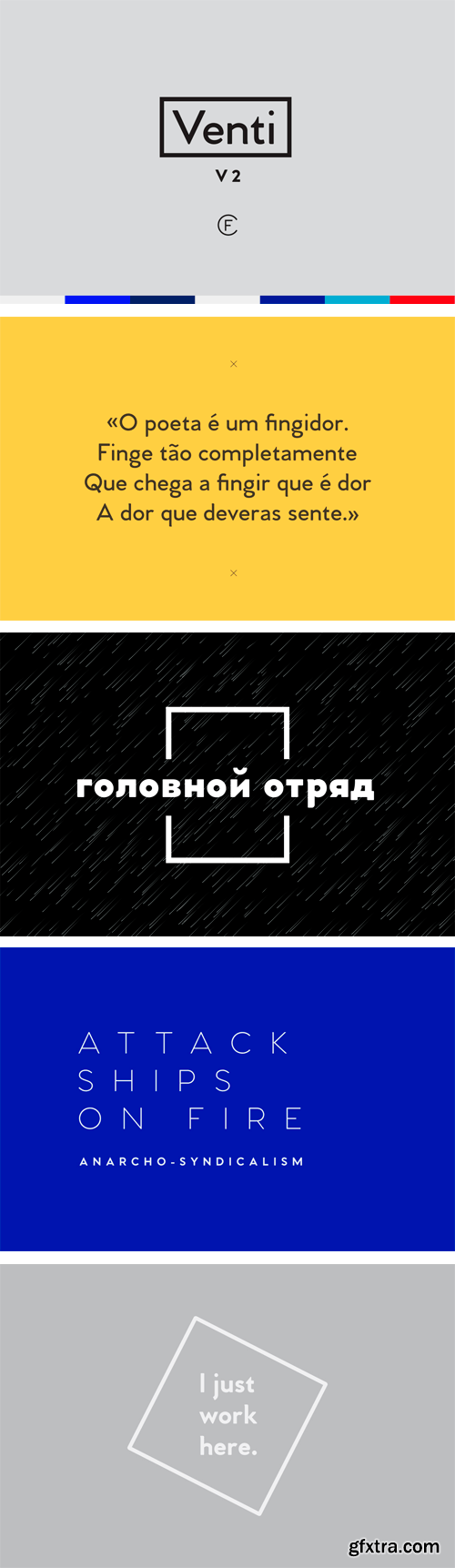
- Venti is a geometric font family with a warm, readable character. Inviting and versatile, Venti's engaging form, subtle imperfections and human tone make it an enticing choice for headlines, quotations and short texts. Version 2 brings a host of bug fixes, redrawn glyphs, better kerning, a new x-height for better readability, and many other improvements.